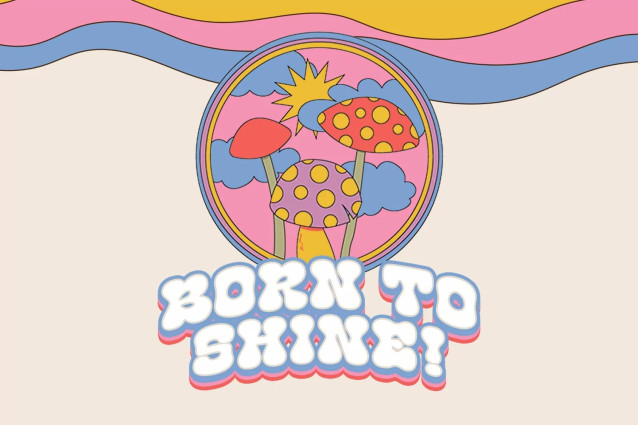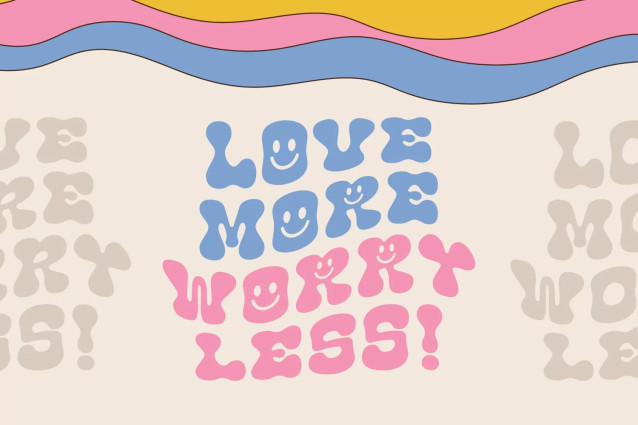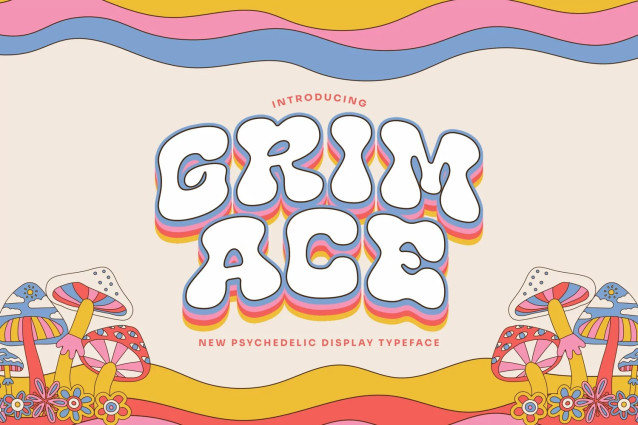
Grimace Display Font
Grimace Display Font is a groovy psychedelic display font with quirky, bubbly shapes and a retro soul. It’s the perfect throwback to the ’60s and ’70s, great for vintage posters, album art, fashion branding, and creative campaigns that want to stand out with nostalgic flair.